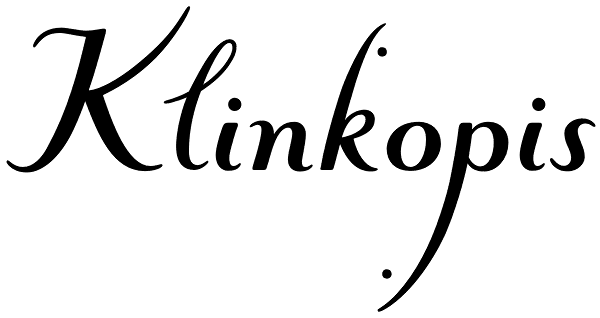
ALS Klinkopis
Yana Klink is an illustrator at Art. Lebedev Studio, whose works are often accompanied by lines of fancy text written in her own recognizable manner with long strokes and “beauty spots.” Once we needed to apply that style to a number of pieces...